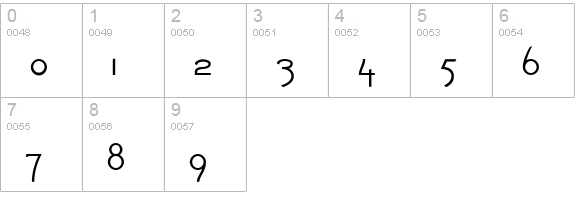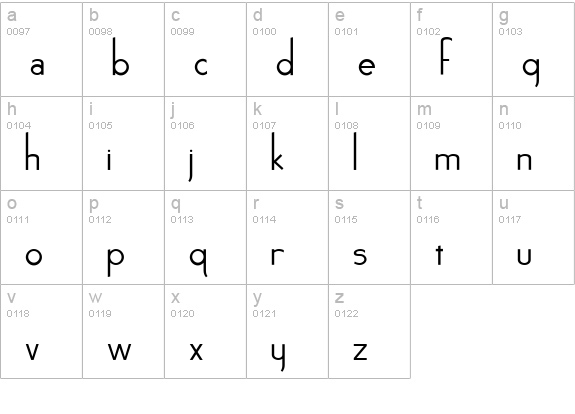
Noir-et-Blanc Font Details
Noir-et-Blanc font is a stunning display typeface that effortlessly combines the elegance of classic noir aesthetics with a modern touch of simplicity. Its sleek and sophisticated design makes it perfect for adding a touch of timeless sophistication to any project. The sharp contrast between the black and white elements of the font creates a bold and striking visual impact that is sure to capture attention. What sets Noir-et-Blanc font apart is not only its visual appeal but also its versatility. Whether you're designing a sleek logo, creating eye-catching headlines, or crafting stylish branding materials, this font will elevate your work to a whole new level of sophistication. Best of all, Noir-et-Blanc font is available for free download at FontsMarket.com. So, why wait? Add a touch of timeless elegance to your designs with this exquisite font today!